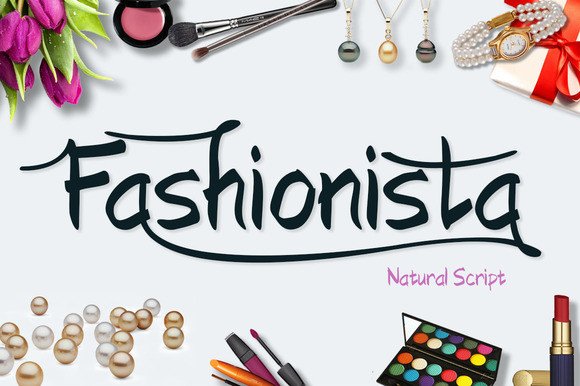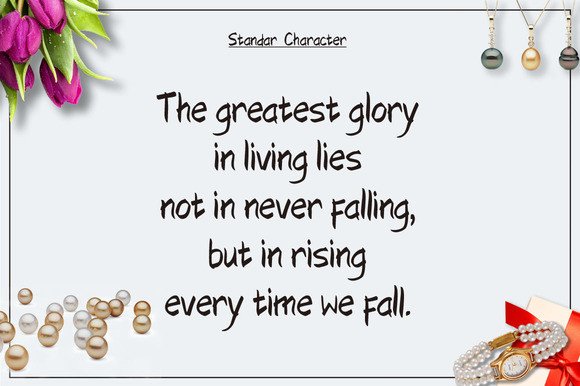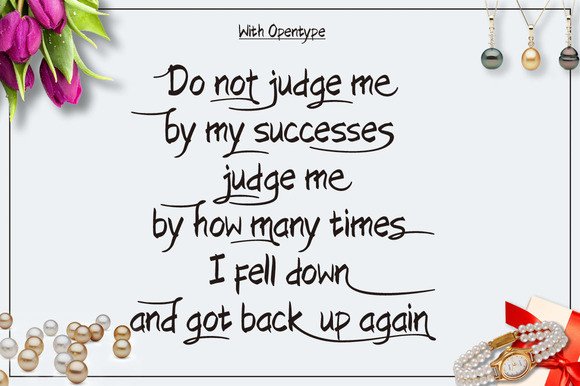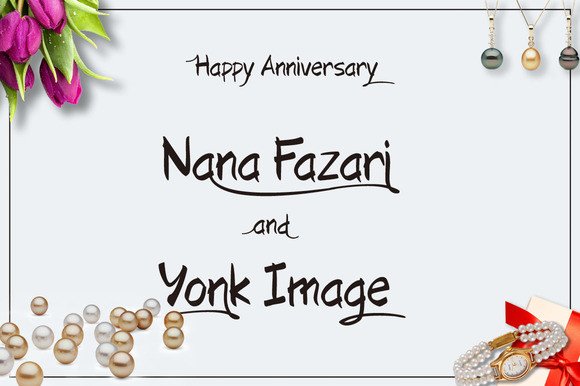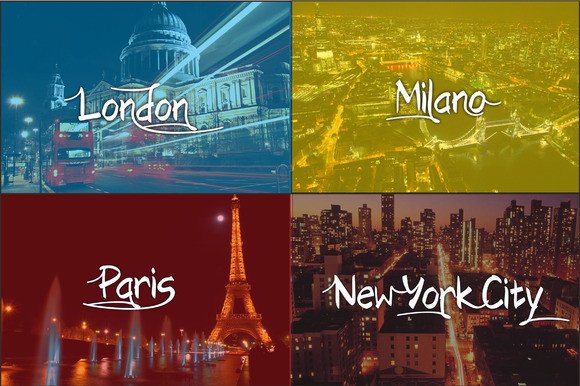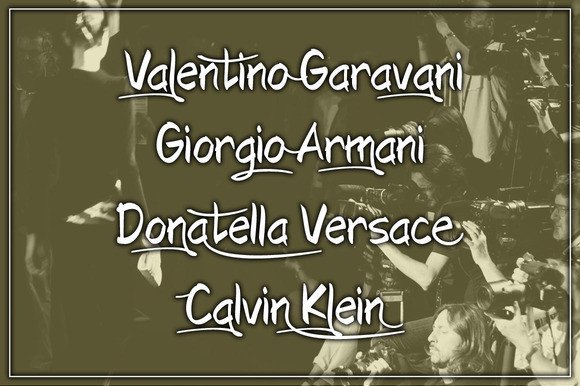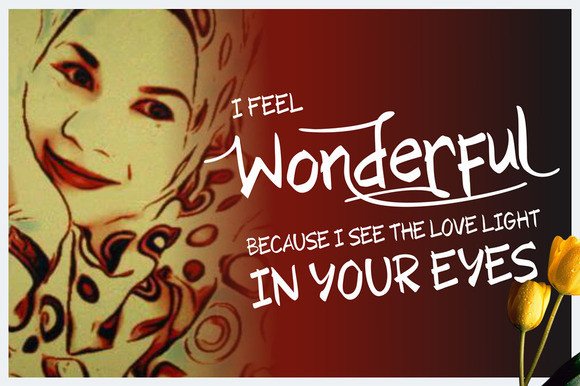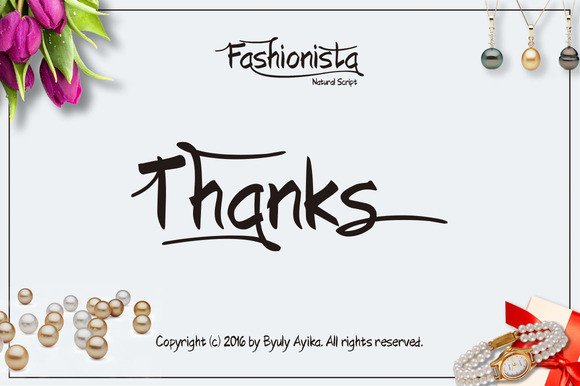
Fashionista Font
About Fashionista Font
Fashionista is a beautiful natural script font. The hard straight lines with rounded endings might give it a bit of a Chinese look and feel.
The lines are pretty thick and it gives you the feeling it has been written with a marker.